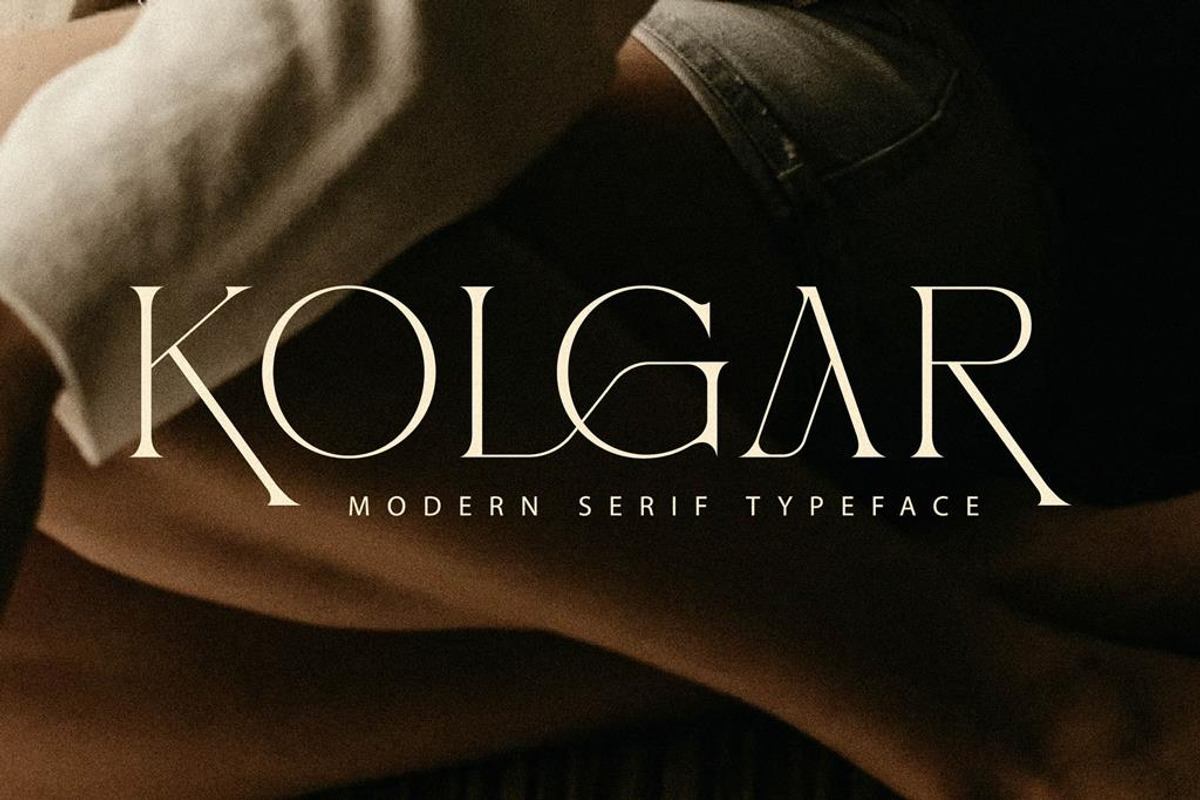
Please note that you must purchase this font for commercial use. You can download Kolgar Modern Serif Typeface for free, strictly for personal testing purposes only. Kolgar is a sophisticated and contemporary serif typeface that blends modern design with traditional elegance. With its clean lines, balanced proportions, and stylish serifs, Kolgar Font Free Download is perfect for branding, editorial designs, websites, logos, and any project that requires a polished and professional appearance.
The font exudes a modern yet timeless quality, making it ideal for both print and digital applications. Kolgar includes uppercase and lowercase letters, numerals, punctuation, and multilingual support, ensuring versatility for a wide range of creative uses.
Whether you’re crafting a modern brand identity, designing a sleek website, or creating elegant marketing materials, Kolgar adds clarity and sophistication to your typography.